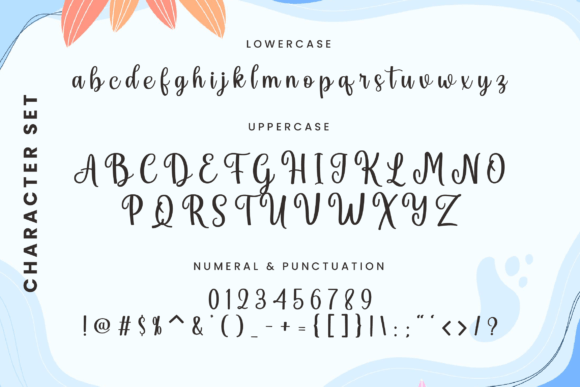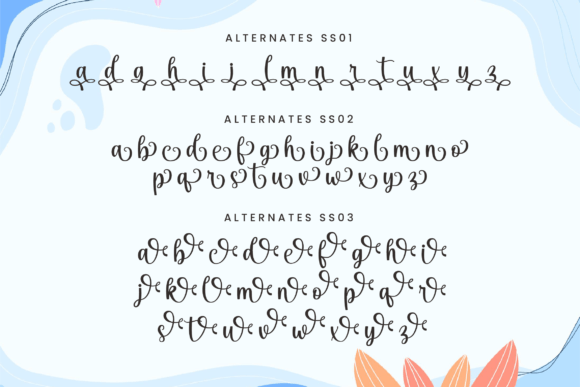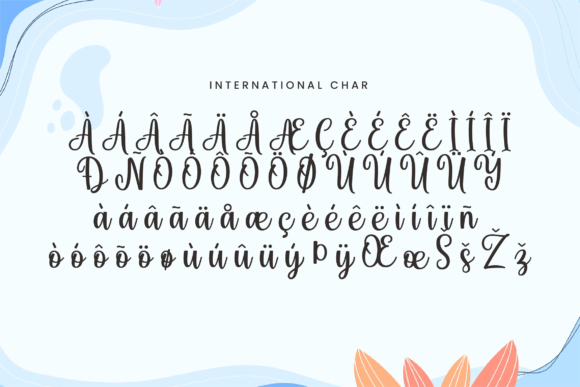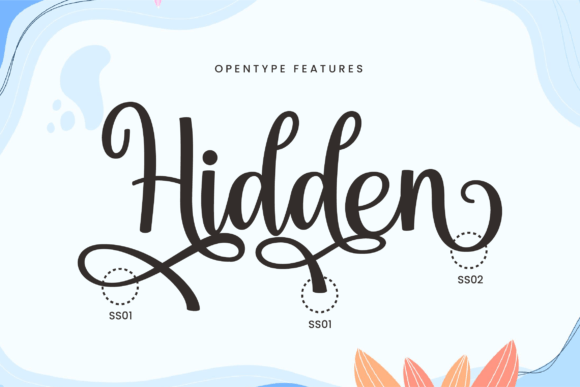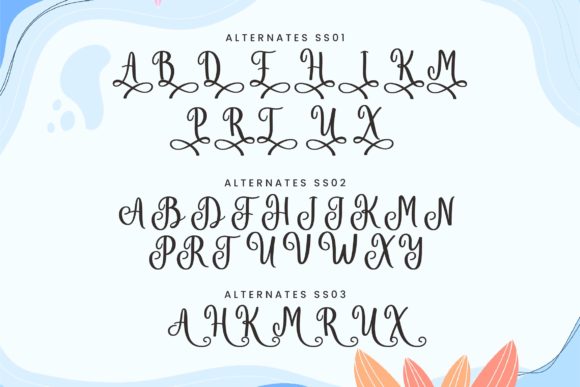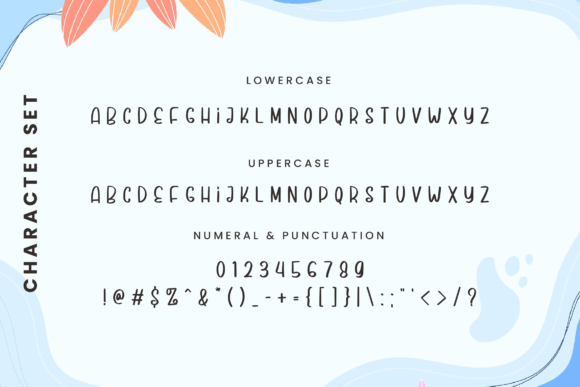
Introducing Dualima Font: Elevate Your Designs with Elegance and Versatility
In the world of typography, finding the perfect font that combines elegance, delicacy, and versatility can be a daunting task. However, if you’re looking for a font trio that can effortlessly elevate your designs, look no further than Dualima Font. This exquisite collection comprises three distinct fonts: a handwritten script, a sans serif, and dingbats, each offering a unique flair that can seamlessly integrate into a wide range of design projects.
The Dualima Font Trio: A Symphony of Styles
Dualima Font is not just a single font but a trio that offers designers the flexibility to experiment with different styles and moods. Whether you’re crafting a sophisticated brand identity, designing an eye-catching poster, or creating engaging digital content, this font trio has got you covered.
- Handwritten Font: The handwritten component of Dualima exudes warmth and personality. Its delicate strokes and elegant ligatures bring a touch of sophistication and intimacy to any design, making it perfect for projects that require a personal and inviting feel.
- Sans Serif Font: For designs that demand clarity and modernity, the sans serif font in the Dualima trio is an excellent choice. Its clean lines and balanced characters ensure readability and versatility, suitable for headings, body text, and more.
- Dingbats Font: The dingbats font adds a decorative edge to your designs, offering a range of symbols, icons, and ornaments that can enhance and embellish your work. From bullet points to elaborate dividers, the dingbats provide a creative way to add visual interest.
Why Choose Dualima Font?
Dualima Font stands out for several reasons:
- Beautiful and Well-Balanced Characters: Each font within the Dualima trio boasts meticulously designed characters that are not only aesthetically pleasing but also well-balanced. This ensures that your text remains clear and visually appealing, whether it’s used for headings or body content.
- PUA Encoding for Easy Access: Dualima Font is PUA (Private Use Area) encoded, which means you can easily access and use the extensive range of glyphs and ligatures. This feature is particularly beneficial for designers who want to add unique touches to their work without the hassle of navigating complex character maps.
- Versatility Across Designs: The true power of Dualima lies in its adaptability. From wedding invitations and branding materials to digital blogs and social media graphics, this font trio can breathe life into your most creative ideas.
- Choose Your Style: Decide which component of the Dualima trio best suits your project. You can use one, two, or all three fonts, depending on your design needs.
- Apply and Enjoy: Implement the Dualima Font in your design and witness how it transforms your work with its elegance and flow.
Dualima Font is more than just a collection of typefaces; it’s a design solution that brings versatility, elegance, and creativity to the table. Whether you’re a professional designer or a crafting enthusiast, this font trio has the potential to elevate your projects and make them stand out. With its beautiful characters, ease of use thanks to PUA encoding, and adaptability across various designs, Dualima Font is an excellent addition to any creative toolkit. So, why wait? Explore the possibilities with Dualima Font today and let your designs flourish like never before!